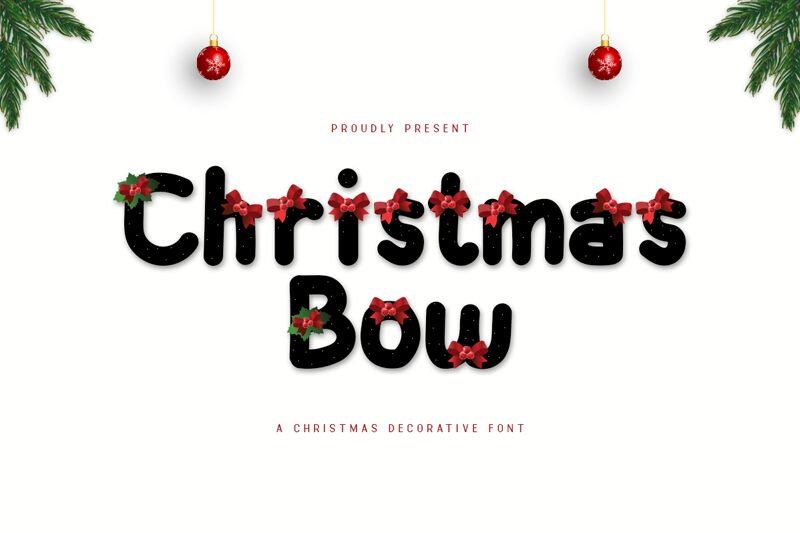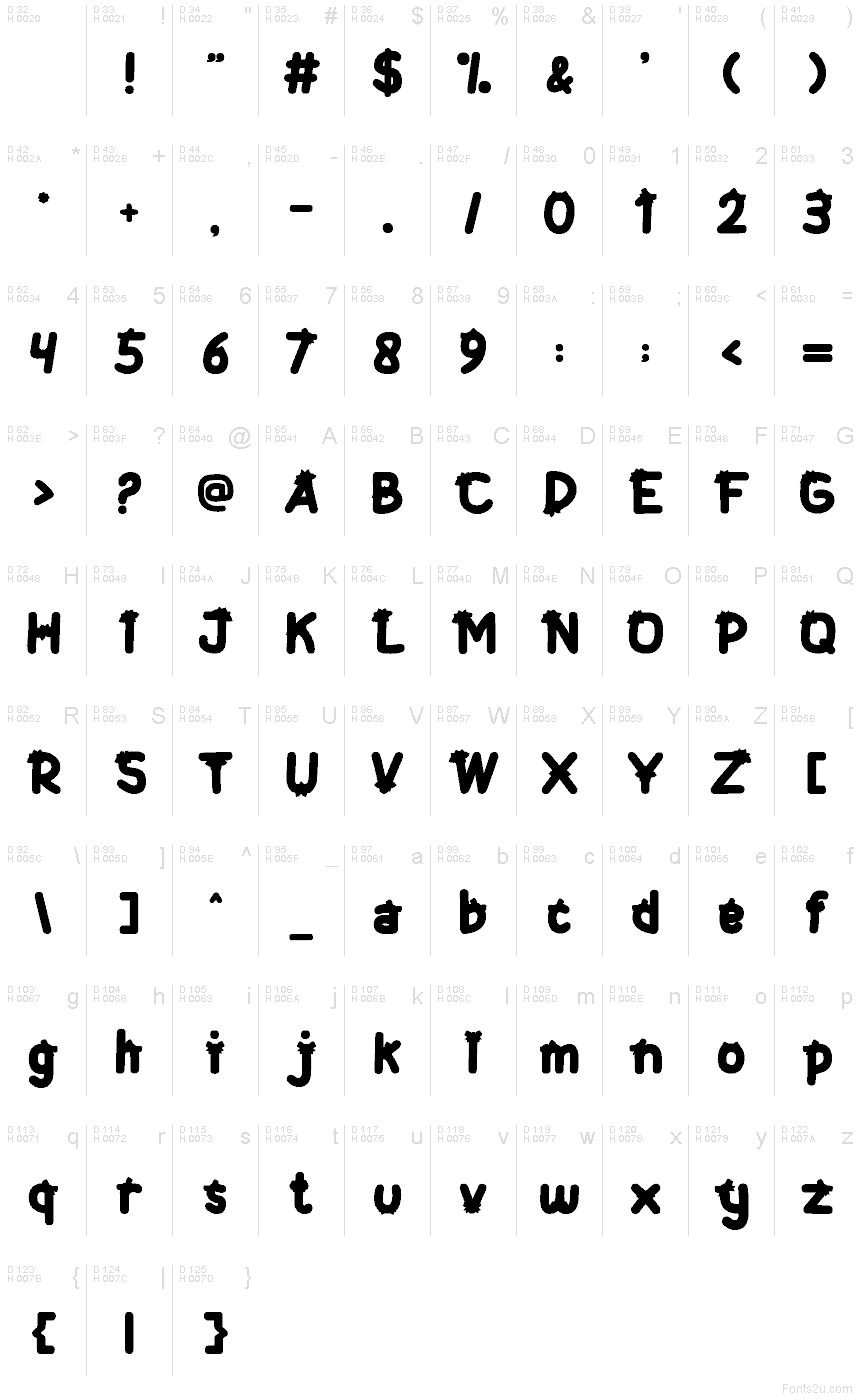
Christmas Bow
Christmas Bow font by Kong Font is a free holiday Christmas typeface that feels like it was cut from cozy construction paper and dusted with sugar. Rounded, chunky letters wobble with a gentle bounce, while the soft, uneven edges give it that handmade, craft-table charm. It reads bold and friendly at a glance, instantly signaling festive fun without feeling stiff or formal.
Using Christmas Bow, your layouts snap into “holiday mode” fast—great for greeting cards, party invitations, kids’ worksheets, gift tags, social media graphics, and seasonal packaging. This free font loves big, colorful headlines; pair it with a clean sans serif in smaller text to keep things readable while letting the playful curves take center stage.